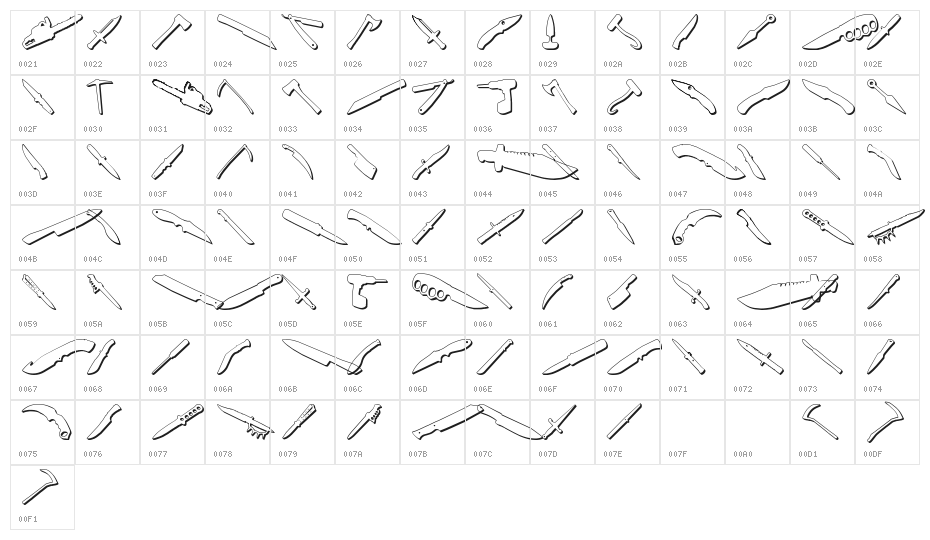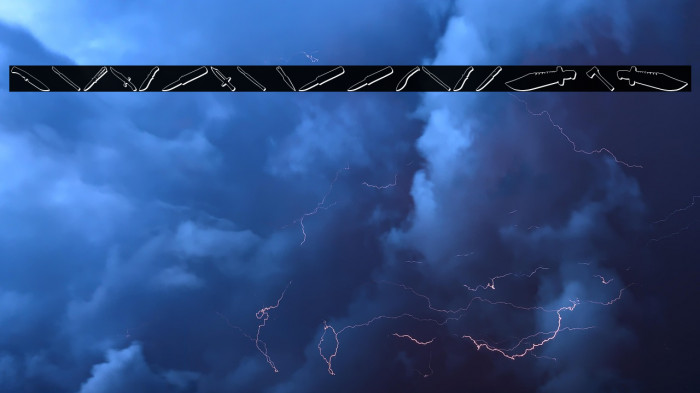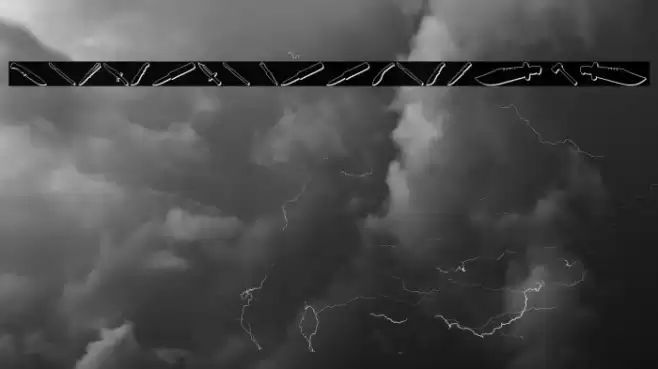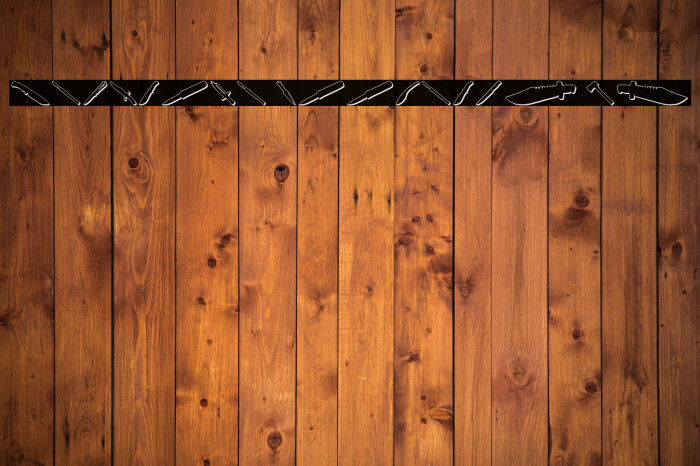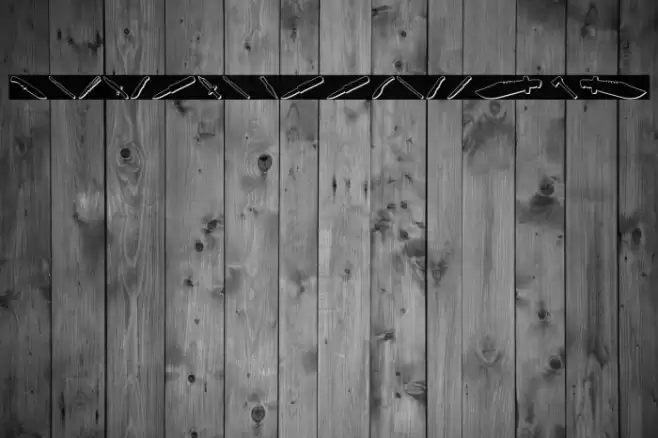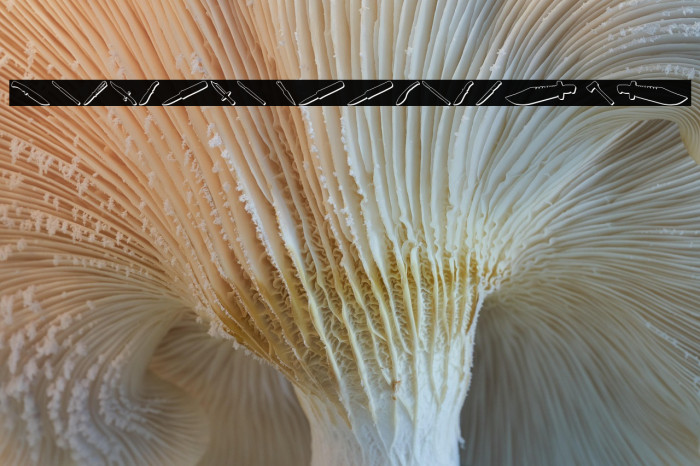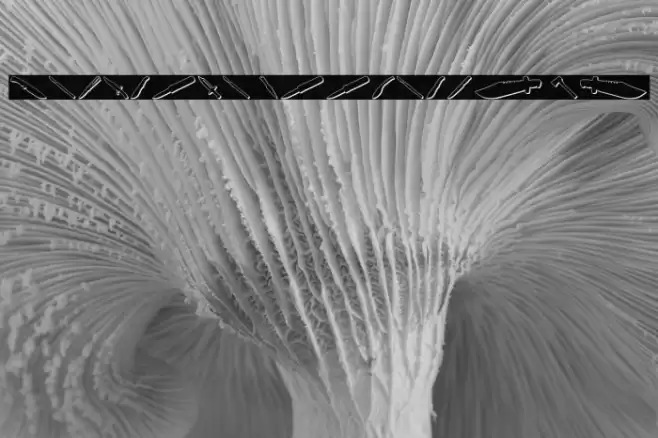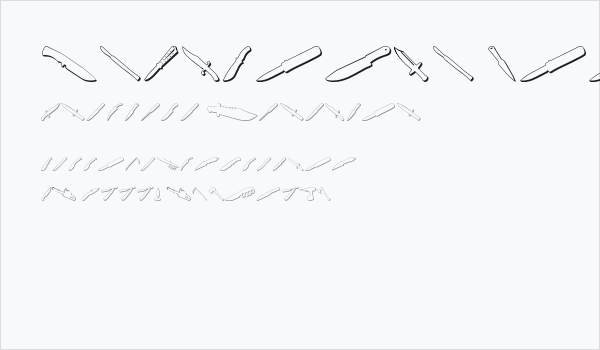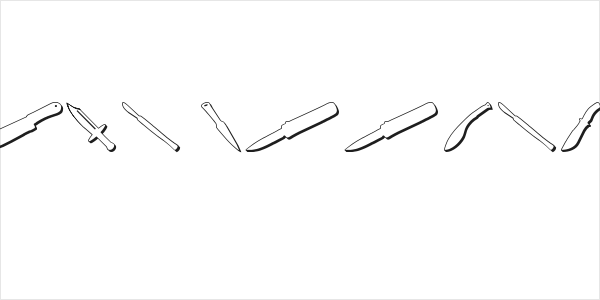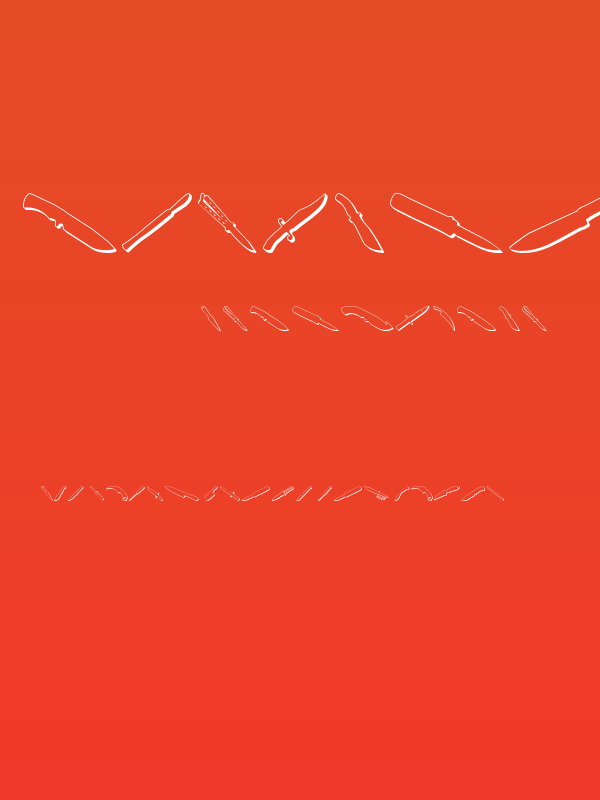
Psycho's Toolshed 3D Font
Psycho's Toolshed 3D Description
A decorative display font composed of stylized outlines of various tools and weapons, each character represented by a unique silhouette such as knives, axes, saws, and drills. The glyphs are highly illustrative, with each letter or symbol taking on the shape of a different object, resulting in a playful and thematic appearance.
Overall StyleDecorative, Thematic, Playful
Use CaseHeadlines, Logos, Posters, Themed graphics
Proposed ProjectsHorror movie posters, themed event flyers, escape room branding, video game titles, novelty merchandise.